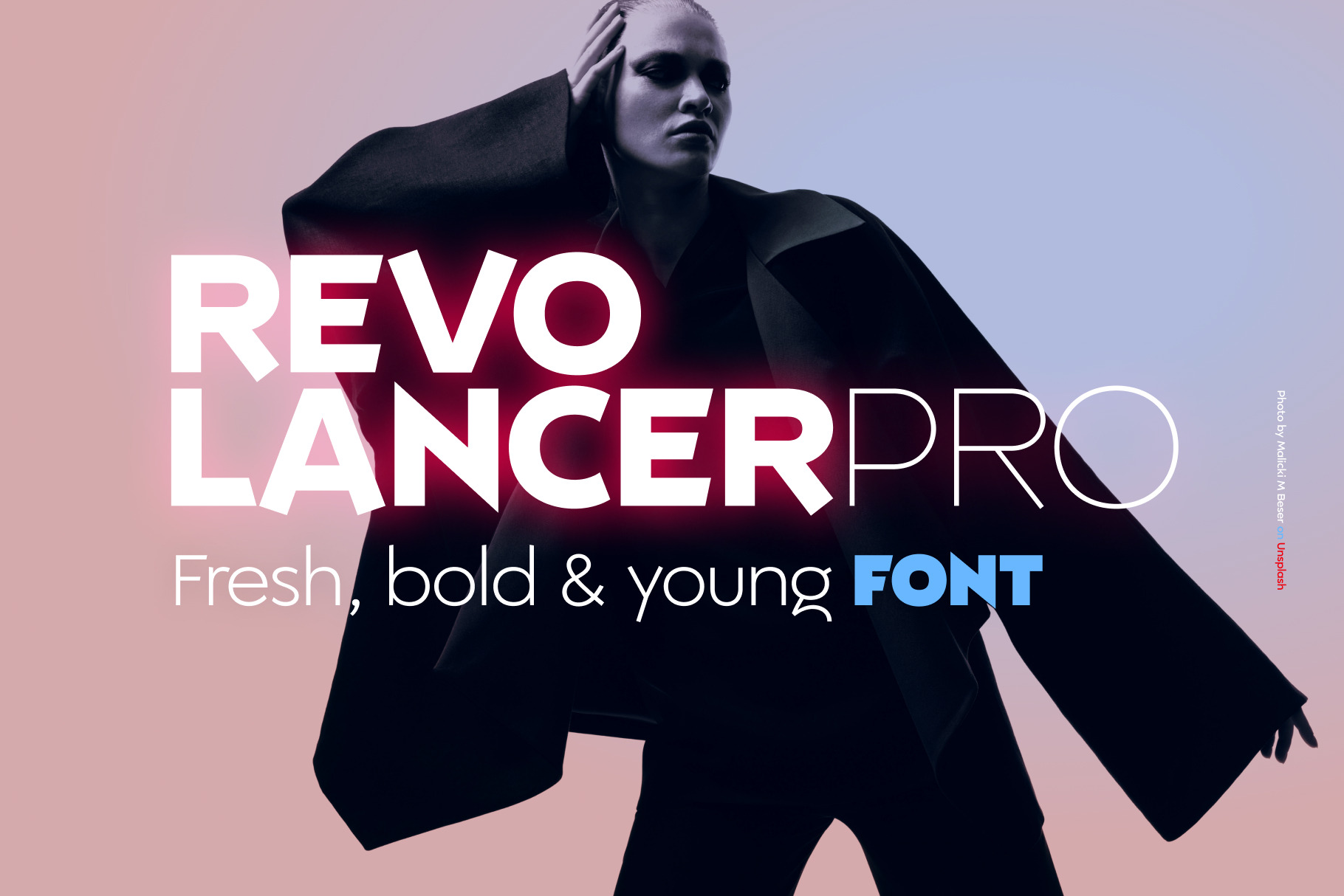
Fresh and Bold Revolancer Pro Font
Revolancer Pro is a new font family with a fresh and bold style. The Revolancer Pro family aims to solve all the problems that designers usually face with other fonts. With its clean look, it will give your designs a more approachable and friendly feel while maintaining the quality expected of a professional product. It’s perfect for designing brands, logos, headlines and much more.
And this font is made as an alternative and complementary part of the unique Revolancer font. https://creativemarket.com/popskraft/6601591-True-postmodern-Font-Revolancer And while each of these fonts is valuable on its own, using them together will allow you to work wonders in typography.
It consists of 9 font weights, Revolancer Pro Light, Revolancer Pro Regular, Revolancer Pro Bold ans so.